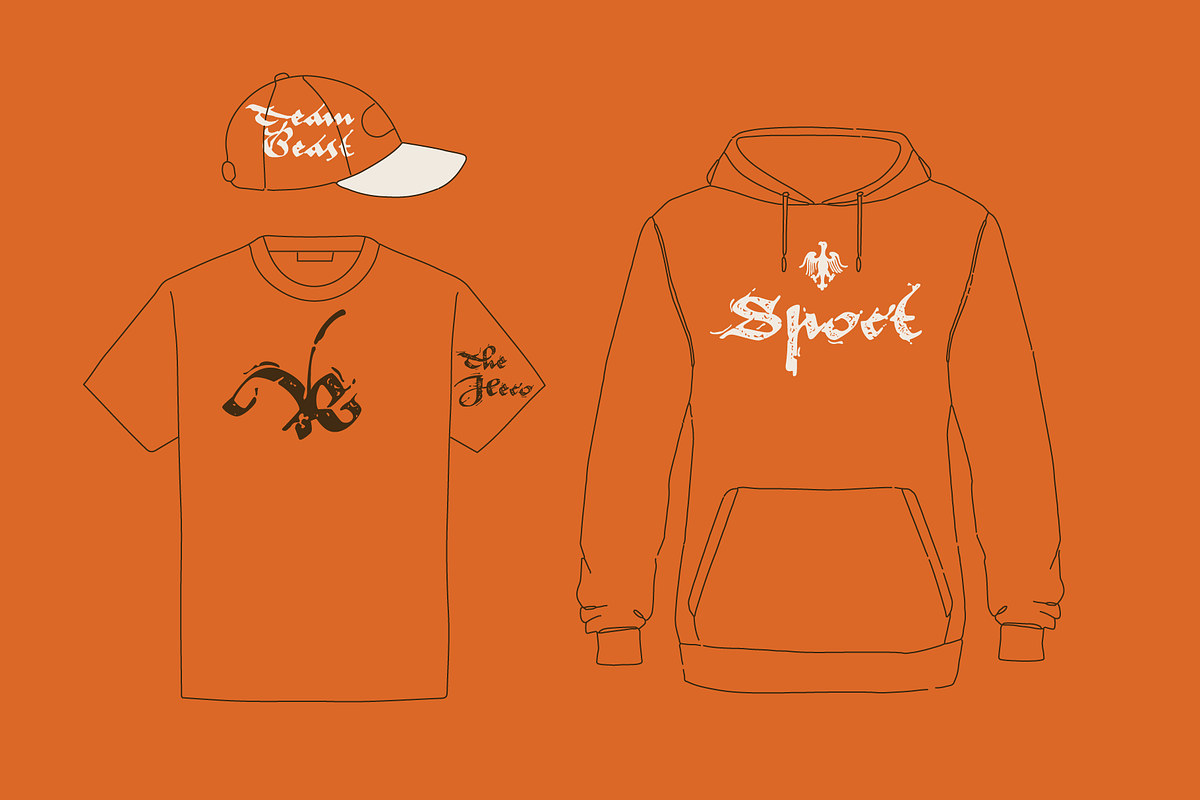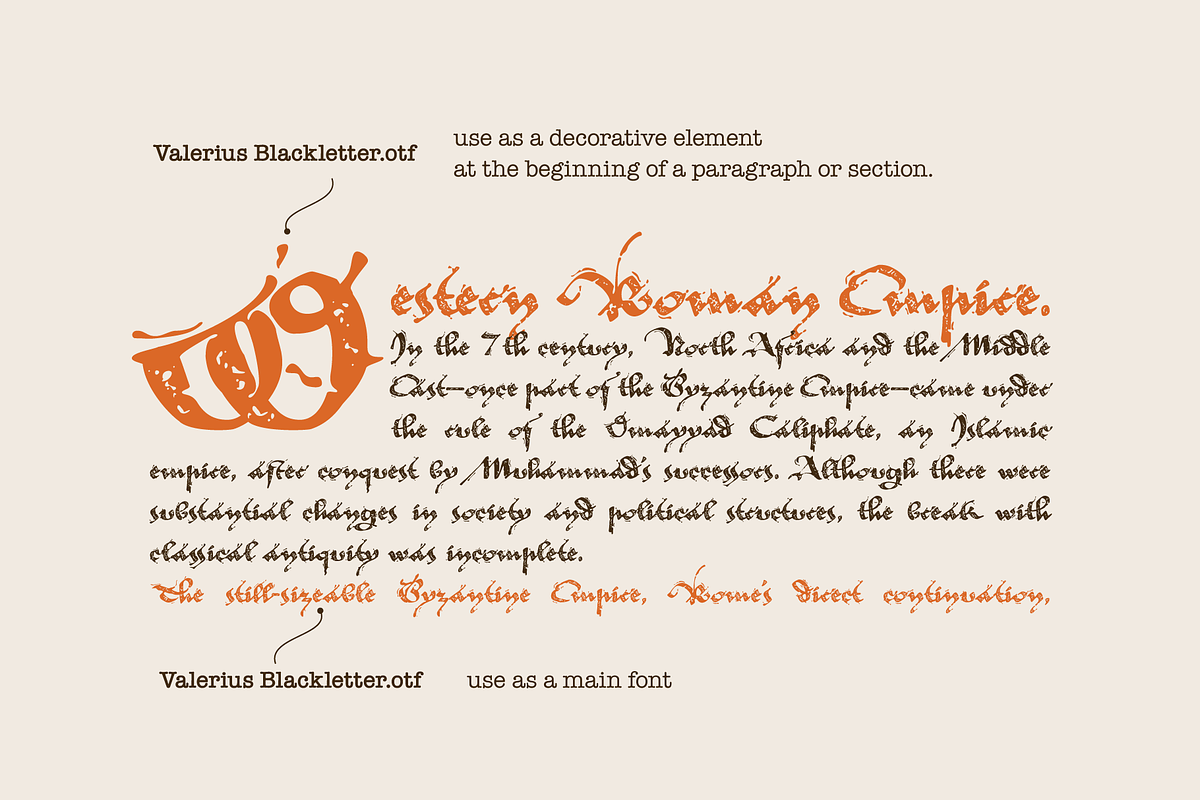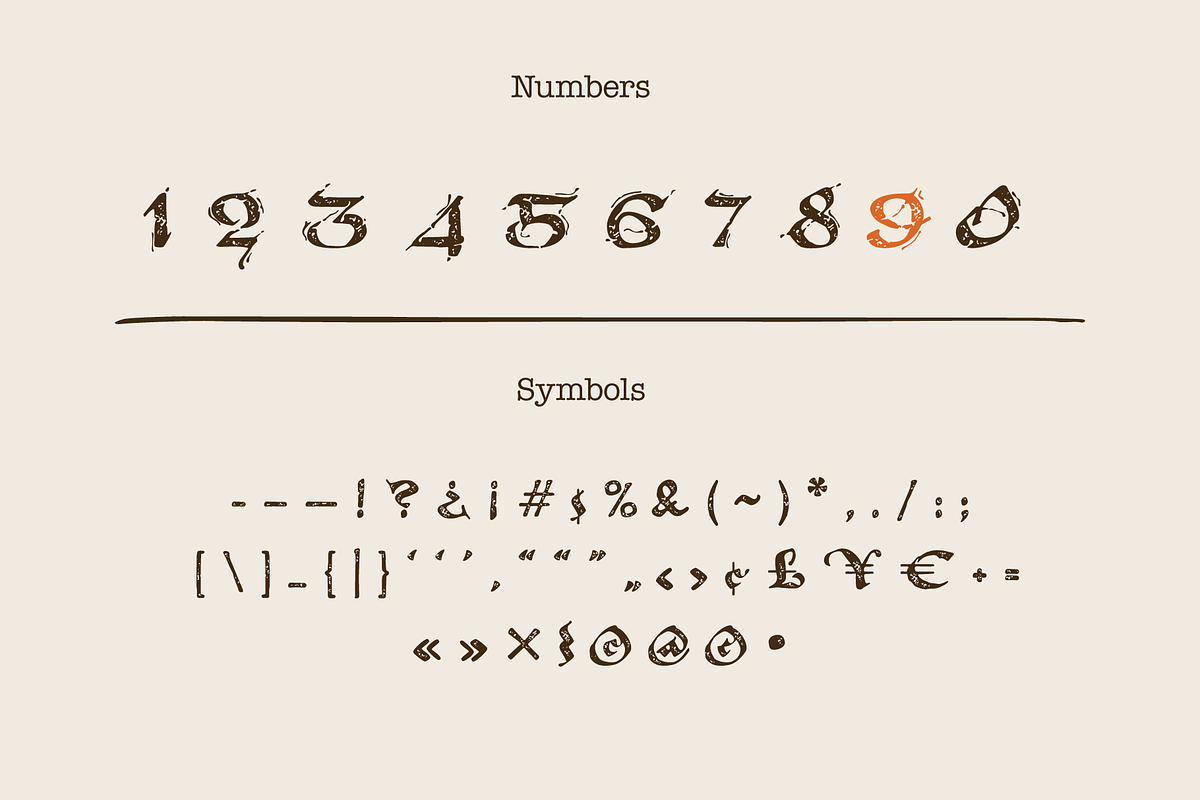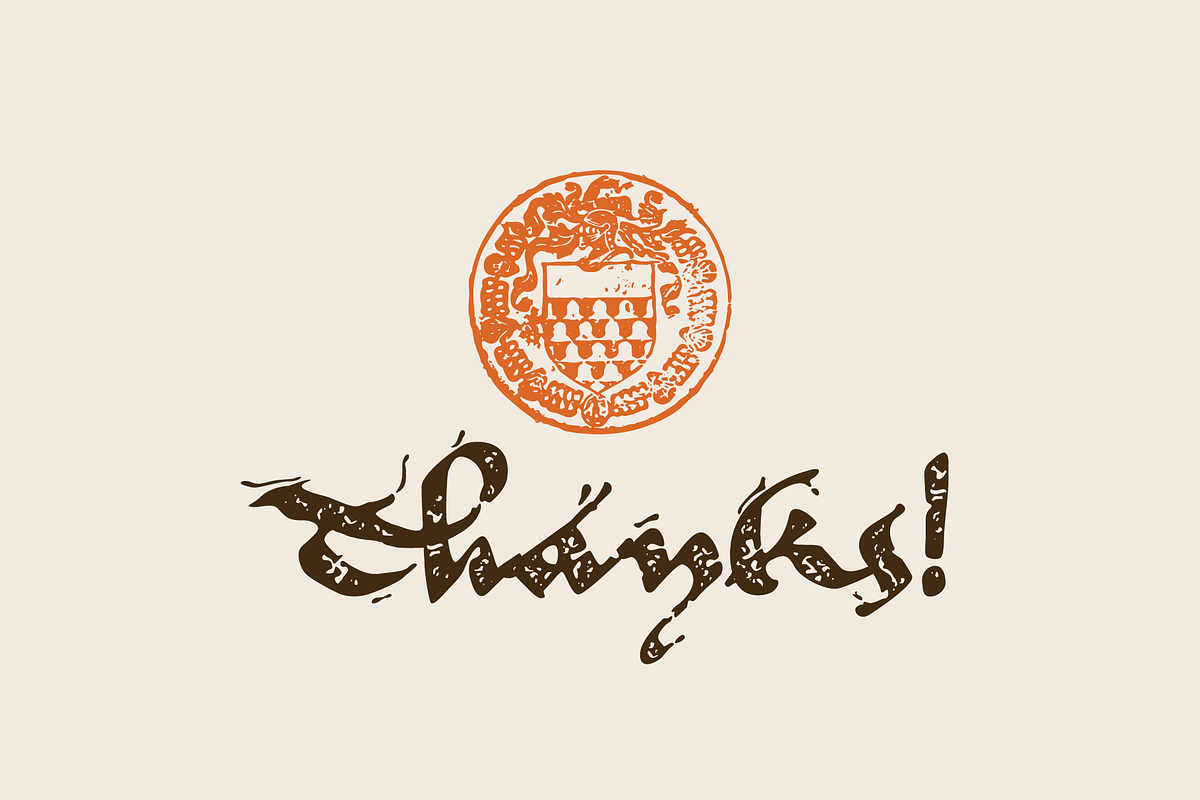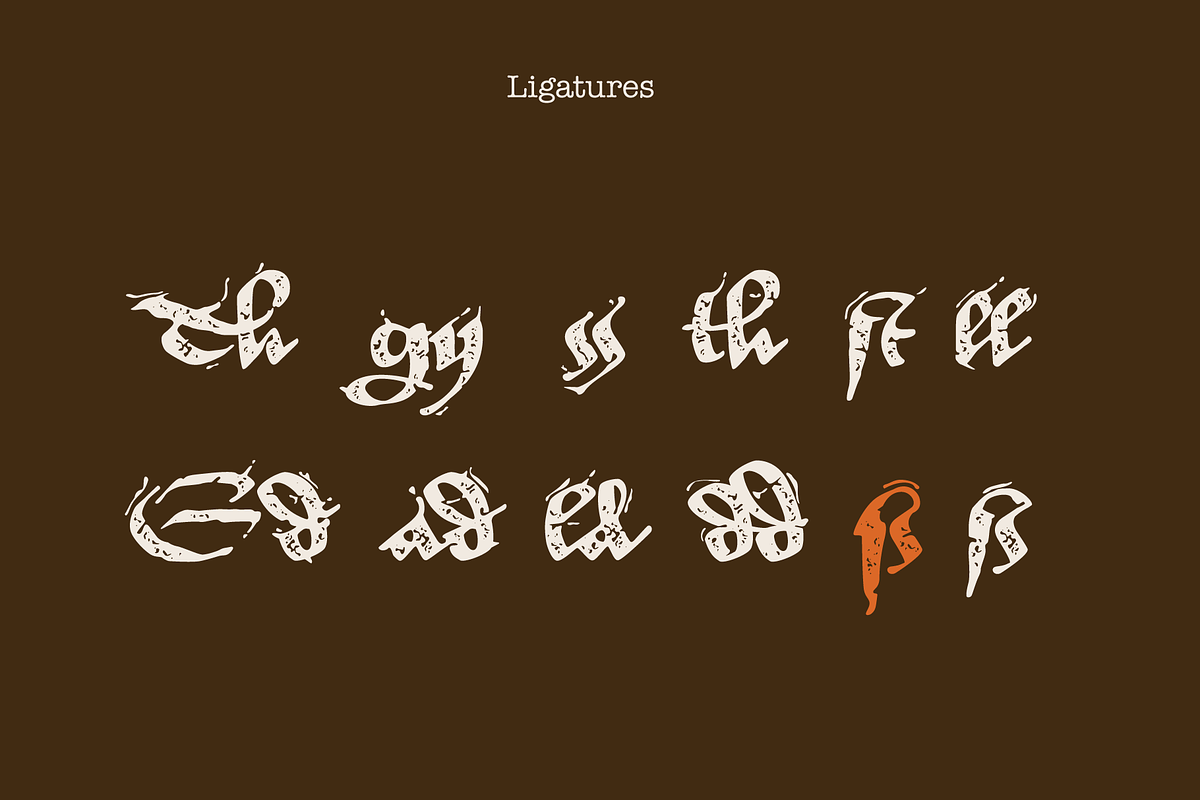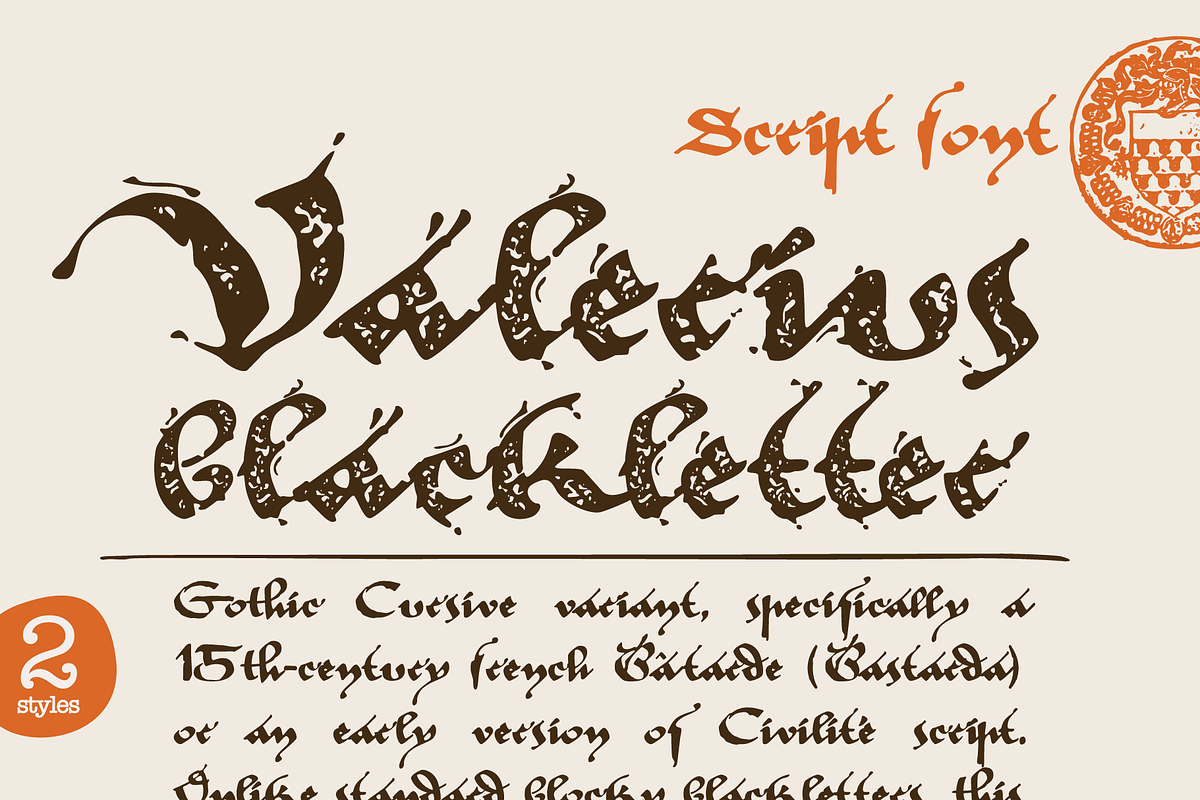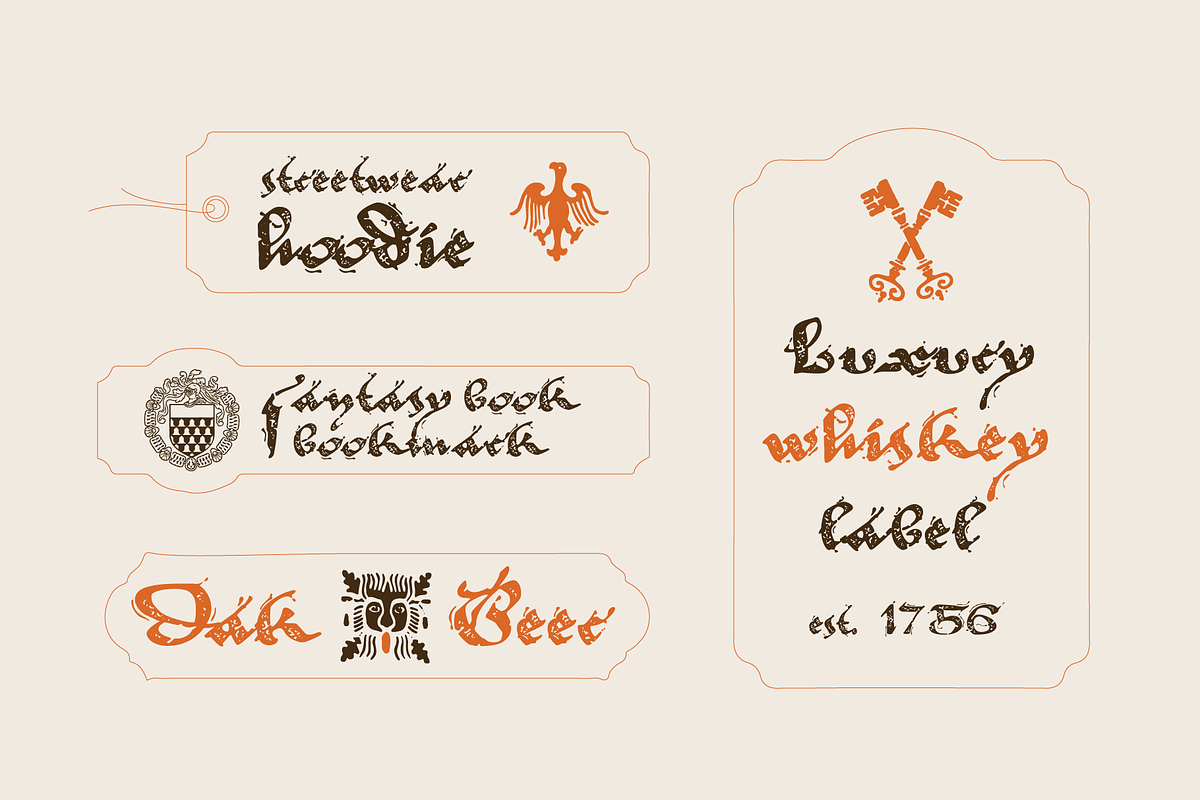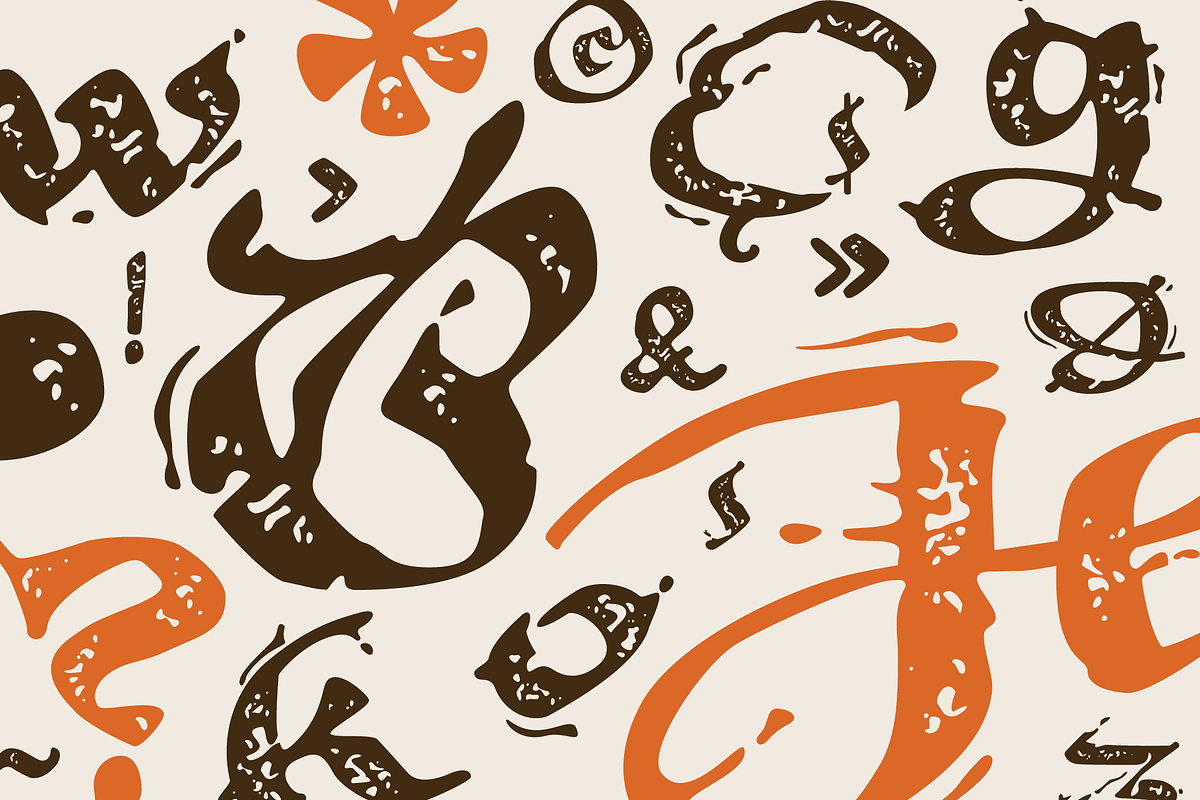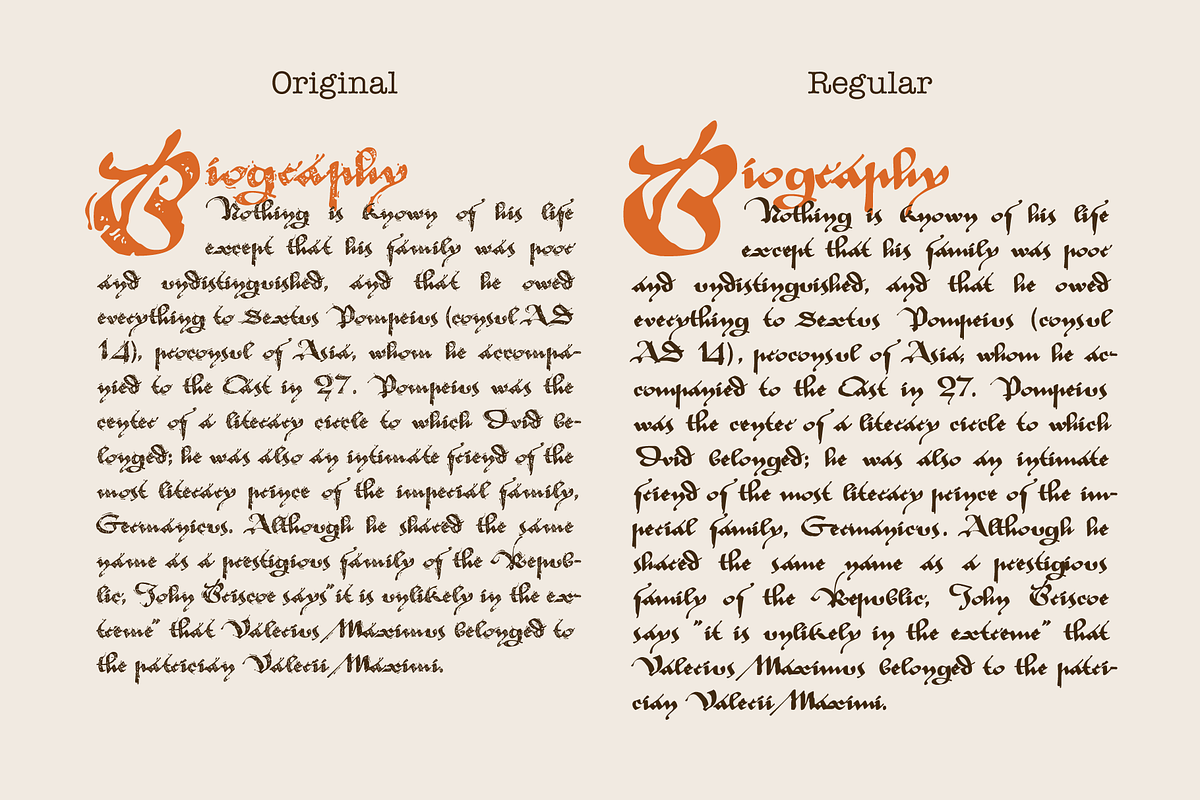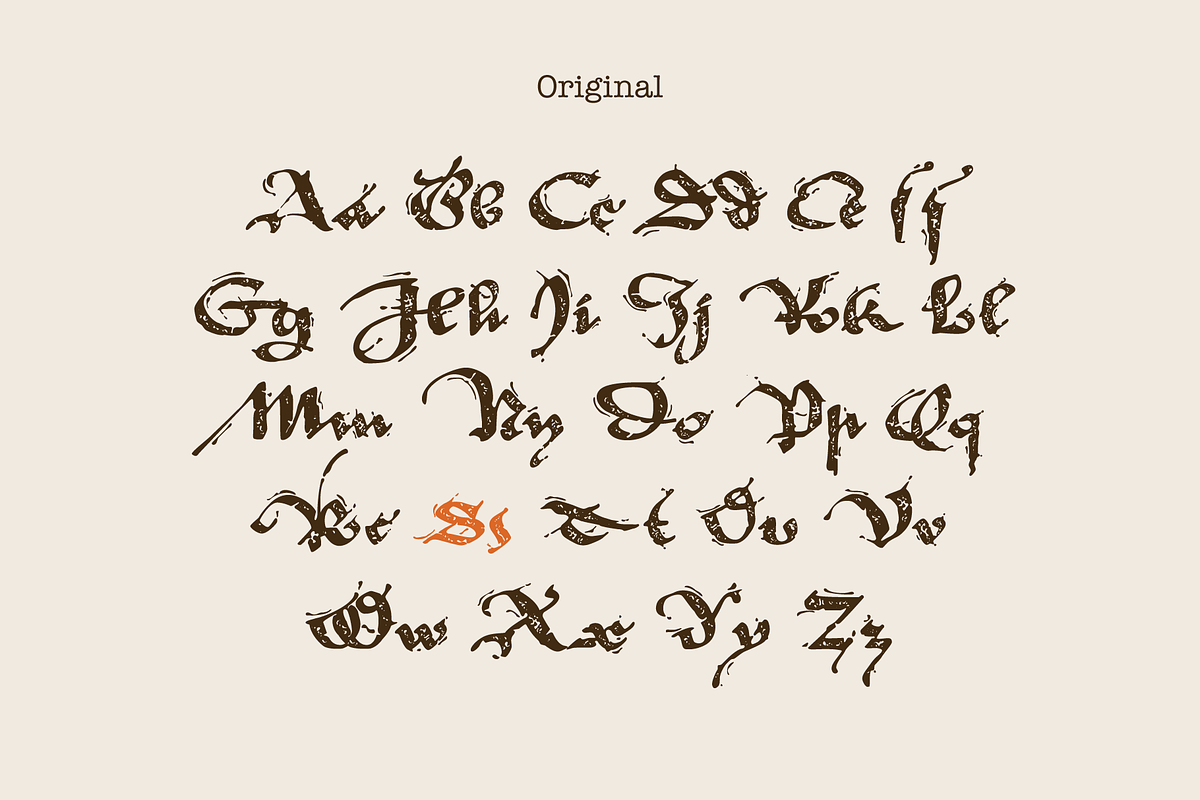
Valerius Elegant Blackletter Script
The story of Valerius started when I was exploring a library and found a rare 15th-century book called De dictis et factis memorabilibus. I loved the beautiful, flowing handwriting of the medieval scribe so much that I decided to bring it to life. I spent months carefully turning those ancient letters into a clean, modern font that anyone can use today.
Valerius is an elegant blackletter script font that mixes old-world gothic style with modern design. Its sharp lines and pretty swirls will give your project a premium, vintage, and slightly mysterious look.
Great for:
Tattoos & Streetwear: Perfect for clothing brands, merch, and flash art.
Packaging: Adds a luxury look to wine labels, perfumes, or cosmetics.
Books & Games: Bold titles for fantasy book covers, posters, and gaming.
Original and Regular styles
Uppercase & lowercase